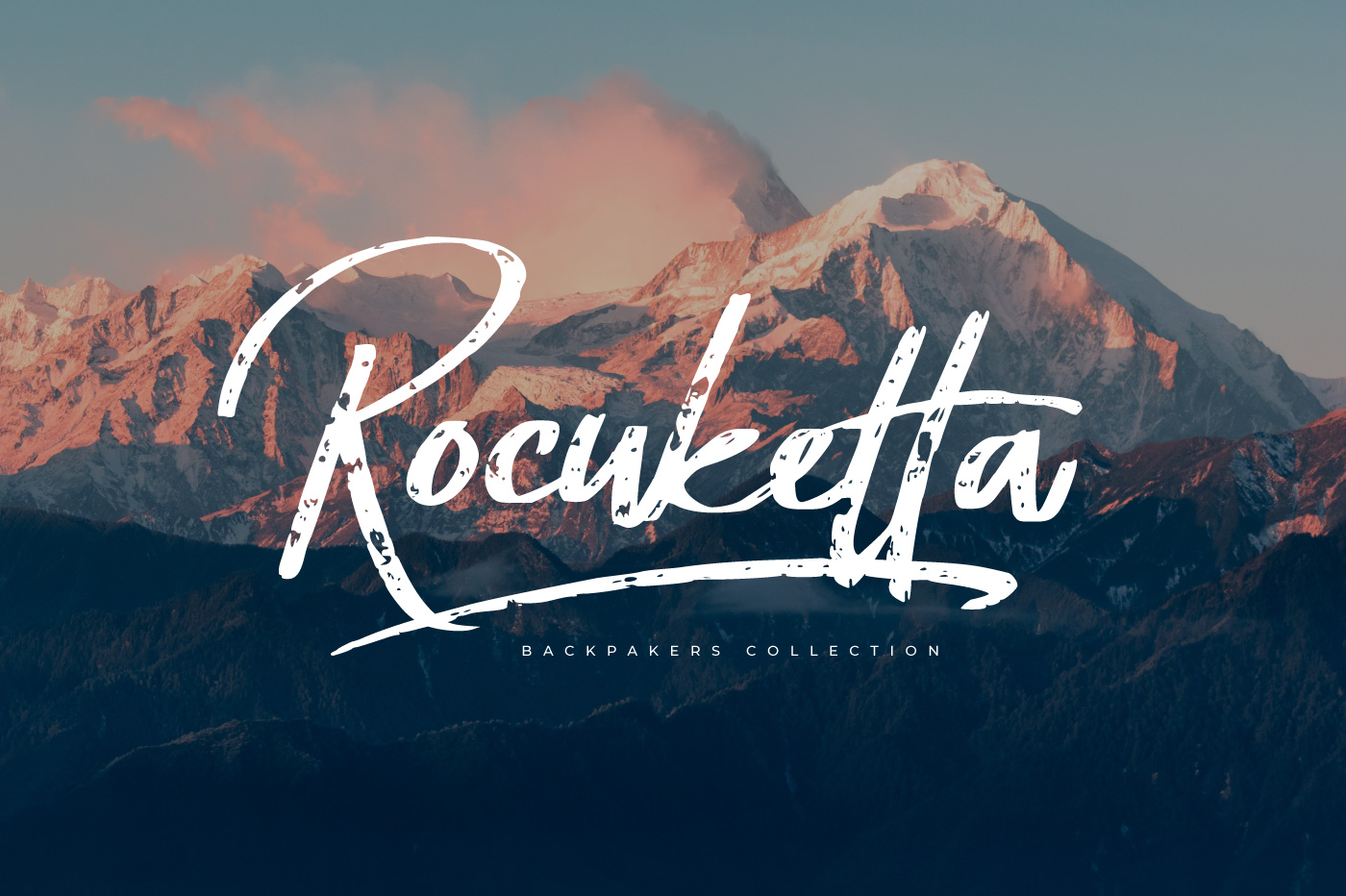
Scottland Font
Scottland Script Font
This is a brush font with a thin style and looks more textured. This font is perfect for logo, branding projects, posters, flyers, social media posts, advertisements, product packaging, product designs, label, photography, and so much more.
Salamahtype